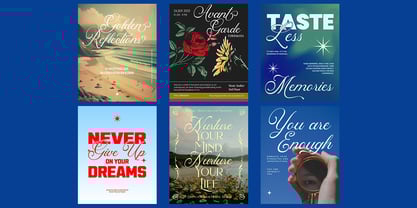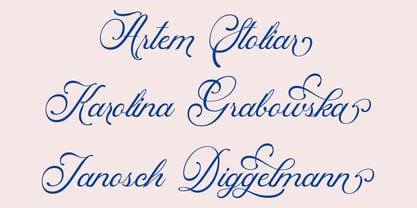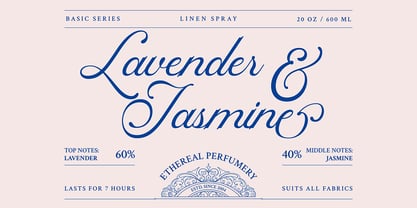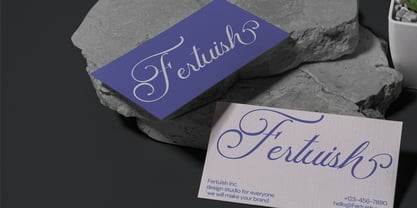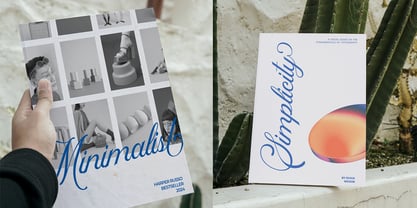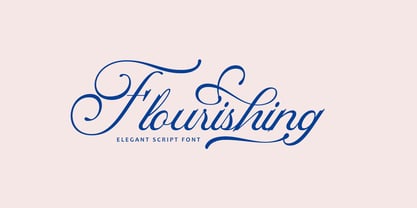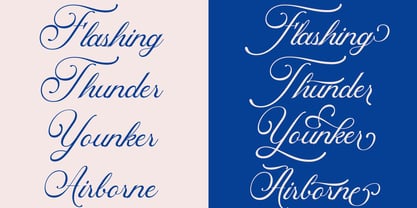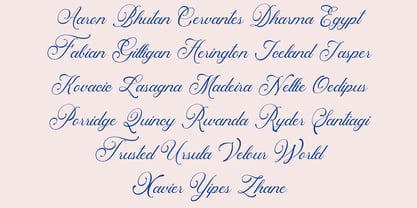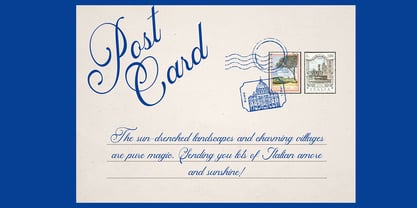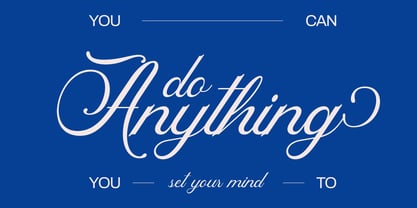
Flourishing
by Arendxstudio
The Flourishing Font Family was designed by Asep Rendi and published by Arendxstudio. Flourishing contains 1 styles.
Font Description: Elegant Script
Elegant Script is a sophisticated and timeless typeface designed to add a touch of class and refinement to any project. With its fluid, handcrafted strokes and graceful curves, this font exudes elegance and charm. Perfect for wedding invitations, luxury branding, or high-end packaging, Elegant Script combines readability with artistic flair. Its delicate swashes and ligatures make it ideal for creating a sense of exclusivity and sophistication. Whether used for headlines, logos, or decorative accents, Elegant Script is the epitome of understated beauty.
Font Description: Flourishing
Flourishing is a vibrant and dynamic script font that captures the essence of creativity and energy. Its bold, sweeping strokes and intricate flourishes make it a standout choice for designs that demand attention and personality. Perfect for branding, posters, and social media graphics, Flourishing adds a sense of movement and excitement to any layout. The font includes a variety of alternates and ligatures, allowing for endless customization and unique combinations. With its playful yet polished style, Flourishing is the perfect choice for projects that need a touch of drama and flair.
Both fonts bring their own unique character to the table, making them versatile tools for designers looking to elevate their work! 🎨✨
Designers: Asep Rendi
Publisher: Arendxstudio
Foundry: Arendxstudio
Design Owner: Arendxstudio